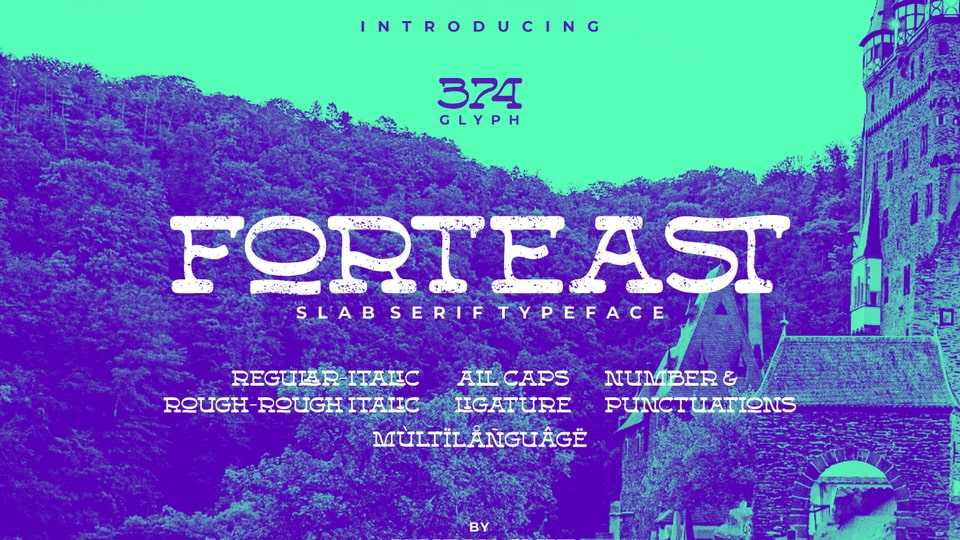
Download Forteast font, a vintage slab serif typeface that has a shape with a smooth curve. It has two styles, normal and rough, there is also an italic version.